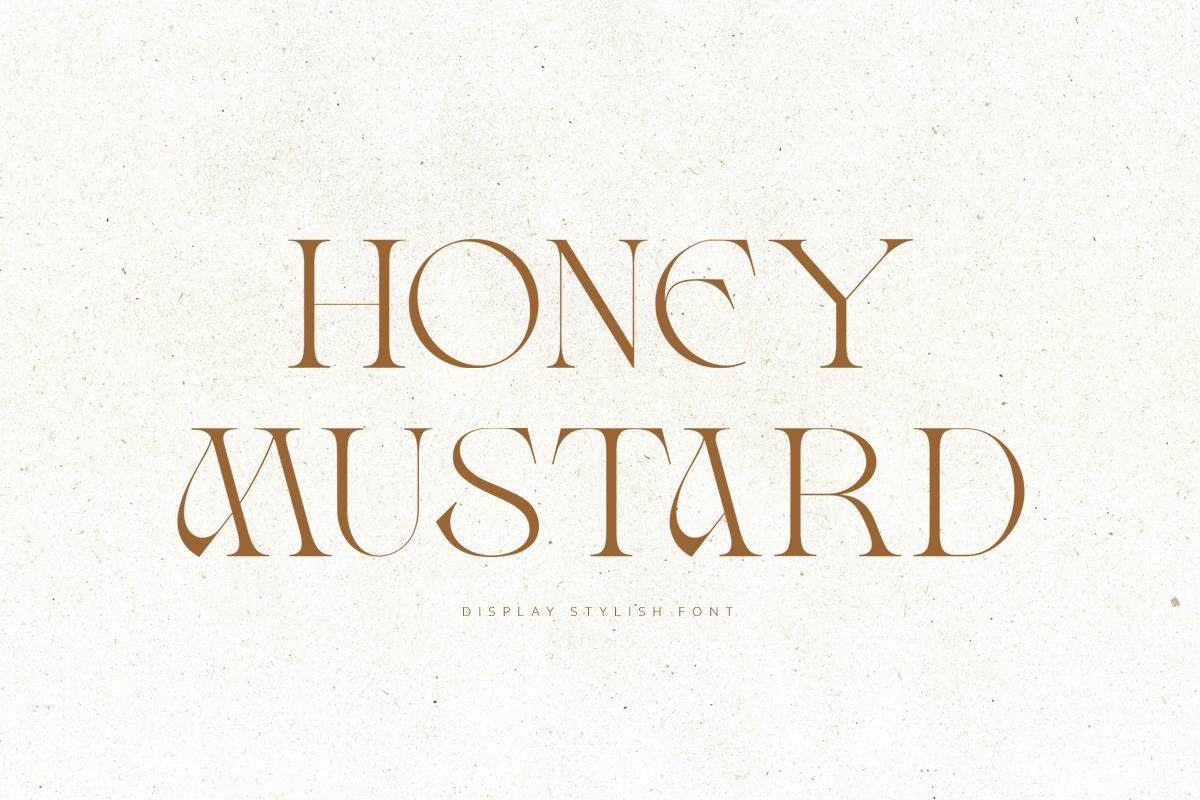
Honey Mustard Font Free Download is a stylish display typeface that effortlessly combines boldness with flair. With its smooth curves, modern shapes, and subtle vintage influences, Honey Mustard is perfect for branding, logo design, headlines, posters, product packaging, and any creative project that needs a touch of elegance and fun.
The font features uppercase and lowercase letters, numerals, punctuation, and decorative alternates to give your designs a unique and polished look. Its playful yet sophisticated vibe allows it to stand out while maintaining readability.
Whether you're creating a trendy brand identity or an eye-catching promotional piece, Honey Mustard Font Free Download adds a fresh, stylish punch to your typography. Use it freely for personal projects, and don't forget to purchase the appropriate license for commercial use. Add some sweet flair to your designs with this delightful and modern display font!